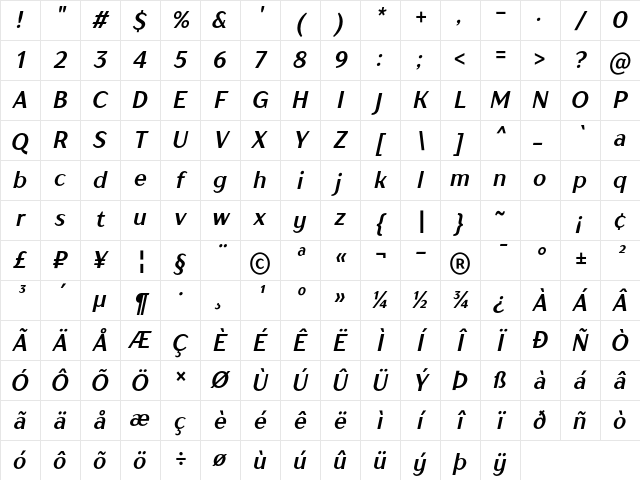
TT Drugs Trl Cnd Bold Italic
Designer: TypeType
Design Context for TT Drugs Trl Cnd
TT Drugs Trl Cnd is a composed and adaptable typeface that performs quietly and consistently across a wide range of design contexts. The slanted form adds forward momentum and visual energy. Its bold stroke weight gives it real presence on the page.
Pro Tip: Use TT Drugs Trl Cnd for emphasis, pull quotes, and subheadings where its slanted energy can add rhythm to the layout.